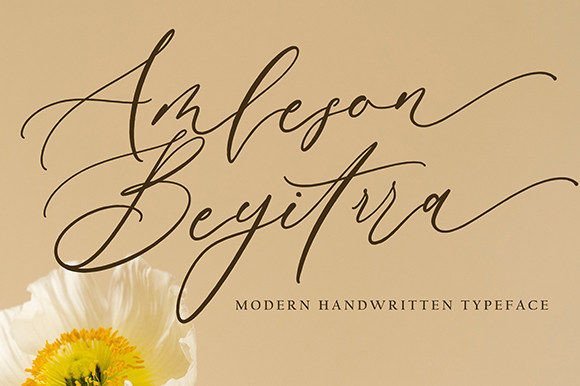
Unleashing the Beauty of Handwritten Typography
There’s something magical about creating a design that truly speaks to your audience. It’s that moment when you combine the perfect elements – color, texture, and, of course, typography – to bring your vision to life. And for designers, finding the right font can be the key to unlocking that magic. That’s where Amleson Beyitrra Font comes in – a timeless, handwritten font that’s sure to captivate and inspire.
With its unique, handcrafted feel, Amleson Beyitrra Font is the perfect choice for creating eye-catching logos, branding, and quotes that truly stand out. Whether you’re working on a personal project or a commercial design, this font is sure to add a touch of elegance and sophistication to your work.
Amleson Beyitrra Font Key Features
- Font Family: Amleson Beyitrra is a modern calligraphy font designed to evoke a sense of elegance and sophistication.
- Unique Characteristics: Amleson Beyitrra features a distinctive blend of traditional calligraphy and modern typography, with intricate flourishes and subtle texture, making it perfect for creative and design-oriented projects.
Amleson Beyitrra Font Review
First off, I’d like to say that I’m impressed by the unique character of this font. ✨ It has a quirky, hand-drawn feel that can add a lot of personality to a design. The font’s use of subtle imperfections and uneven letterforms gives it a charming, human touch that’s perfect for projects that need a bit of whimsy.
Here are some of the things that I think work well:
- ✨ The font’s eclectic feel, which is perfect for adding a bit of visual interest to a design.
- ✨ The subtle imperfections and uneven letterforms, which give the font a unique, handmade feel.
- ✨ The font’s versatility, which makes it suitable for a wide range of projects, from branding to editorial design.
- ⚠️ The font may be difficult to read in certain contexts, such as in small sizes or at a distance.
- ⚠️ The font’s unique character may not be to everyone’s taste, and some users may find it difficult to read or understand.
Overall, I think the Amleson Beyitrra font is a great choice for designers who are looking to add a bit of personality and whimsy to their projects. While it may have some limitations, its unique character and versatility make it a great option for a wide range of applications.
Amleson Beyitrra Font is ideal for:
- Brand identities and logos
- Editorial and design publications
Alternatives to Amleson Beyitrra Font
The Great Vibes font is a modern, elegant script font that is perfect for creating a sophisticated and professional look. It is ideal for use in wedding invitations, event branding, and other high-end design projects. Compared to Amleson Beyitrra Font, Great Vibes has a more refined and polished feel, making it suitable for formal events and corporate branding.
Carolyna Pro is a beautiful, cursive script font that is perfect for adding a touch of elegance and sophistication to your designs. It is ideal for use in wedding invitations, event branding, and other design projects that require a high level of refinement. Compared to Amleson Beyitrra Font, Carolyna Pro has a more delicate and refined feel, making it suitable for formal events and high-end branding.